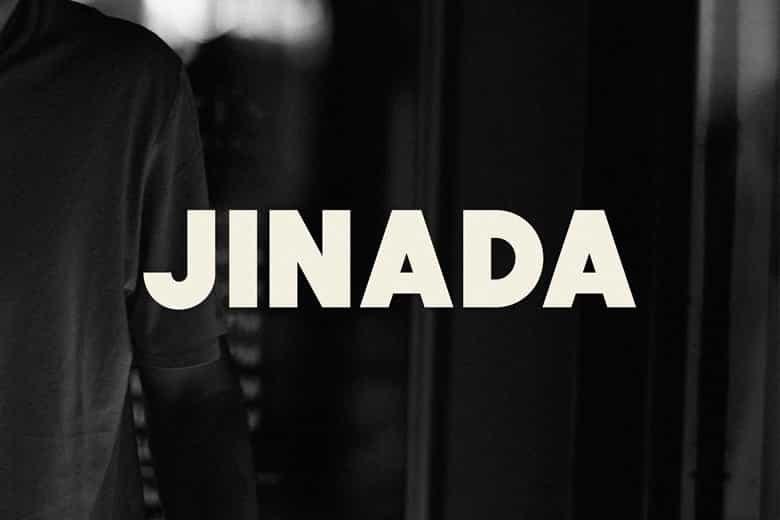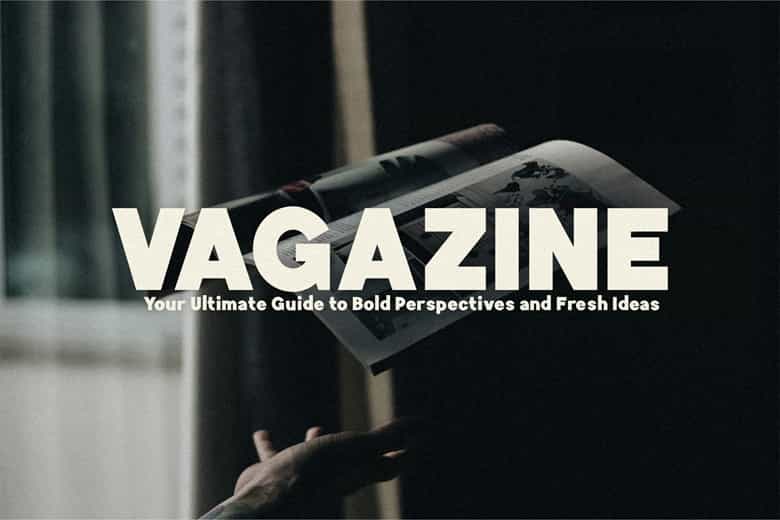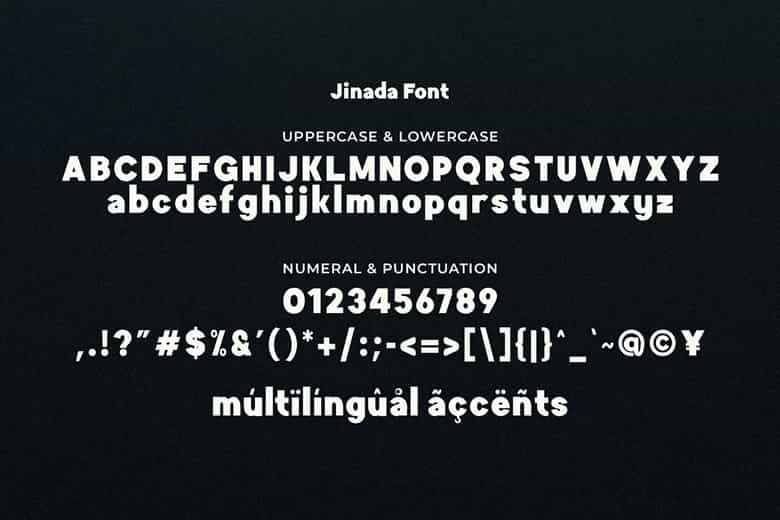
Jinada is a contemporary, loud sans serif font to make a point. It is ideal to use in building powerful headlines, logos and branding materials with its bold and confident letterforms. Being both simple and powerful, Jinada is perfectly suited to designs where the typography needs to be attention gaining.